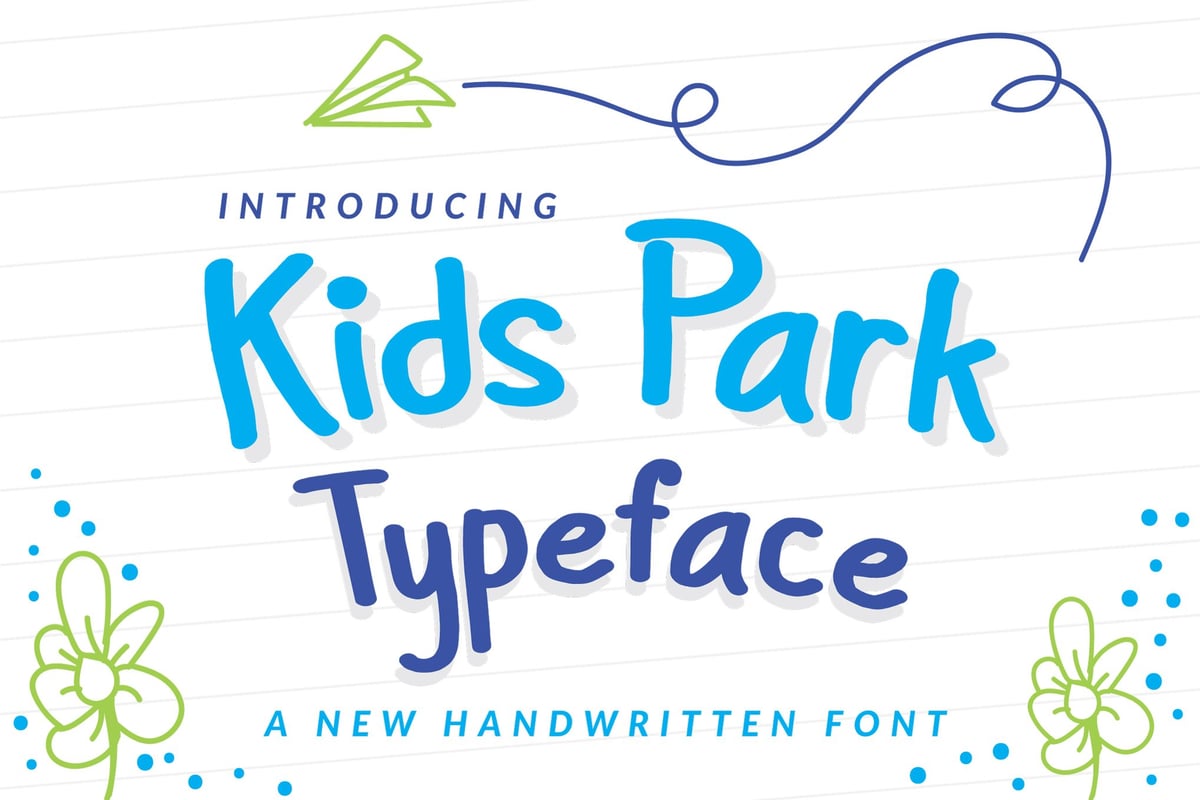
Free Kids Park - Playful Font
Bring joyful, hand-lettered energy to your designs with Kids Park — a charming playful font built for fun.
Kids Park is a fresh handwritten typeface bursting with personality. Its rounded, bouncy letterforms make it perfect for a wide range of creative projects, from birthday cards to branding materials.
Great for use on:
- Greeting cards and invitations
- Branding materials and business cards
- Quotes and posters
- And much more!